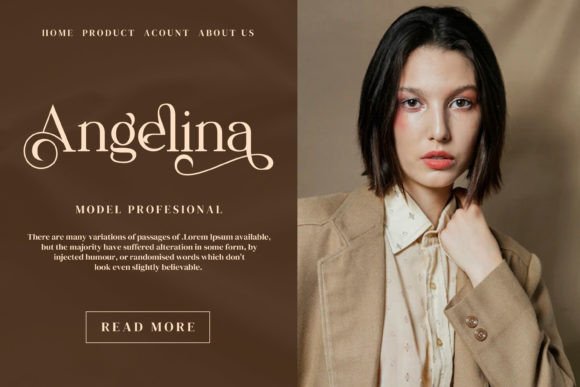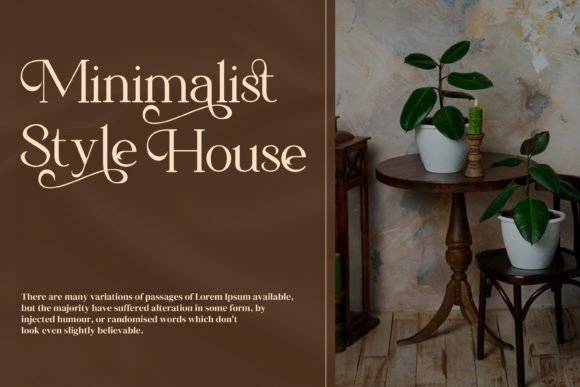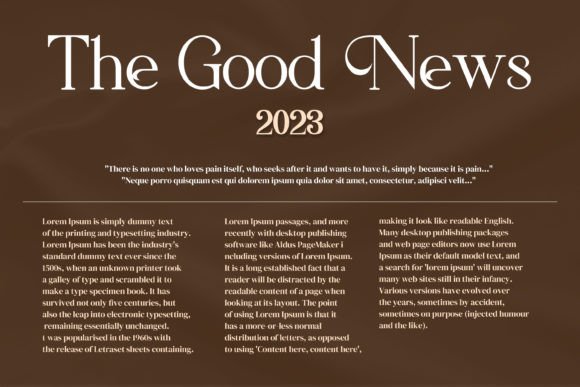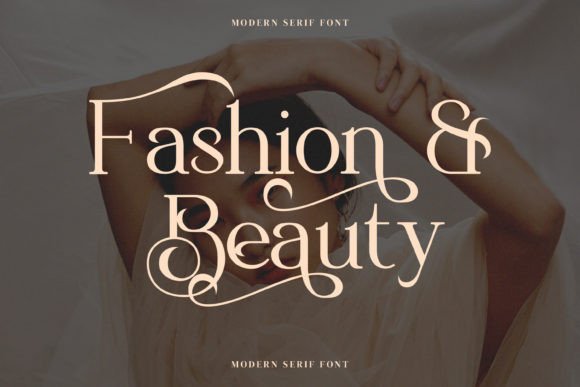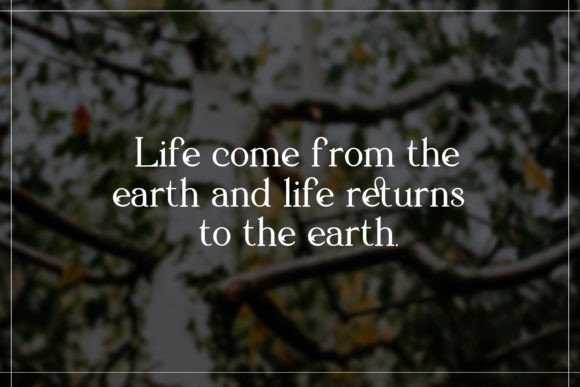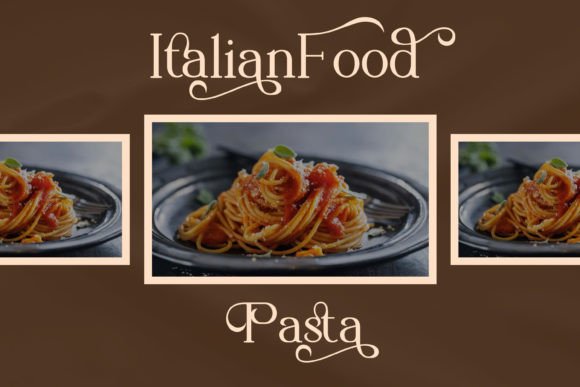
Introduction to Borysta Font
This elegant serif font boasts modern lines and curves, coupled with stylish serifs, giving it a refined and sophisticated look.
Borysta is ideal for upscale brands and posh designs, it conveys a sense of timeless class and beauty Keep in mind that the font is PUA encoded, meaning that you can access all delightful glyphs and swashes freely.